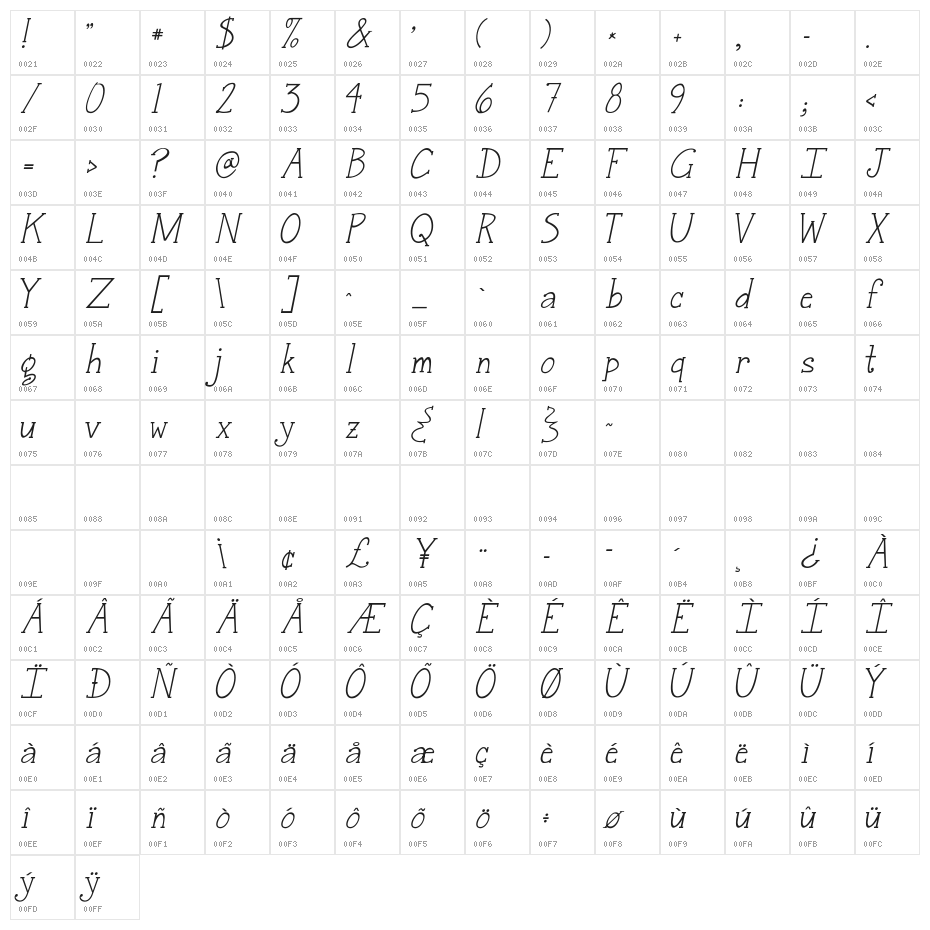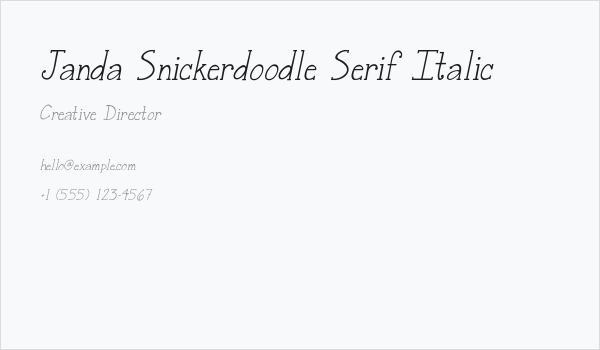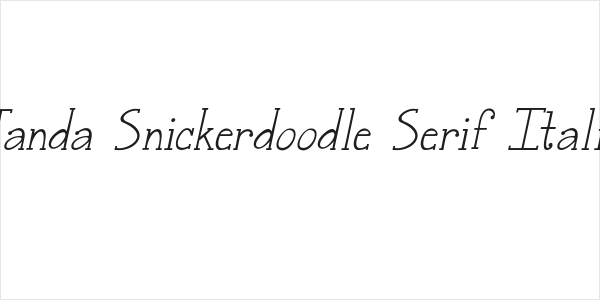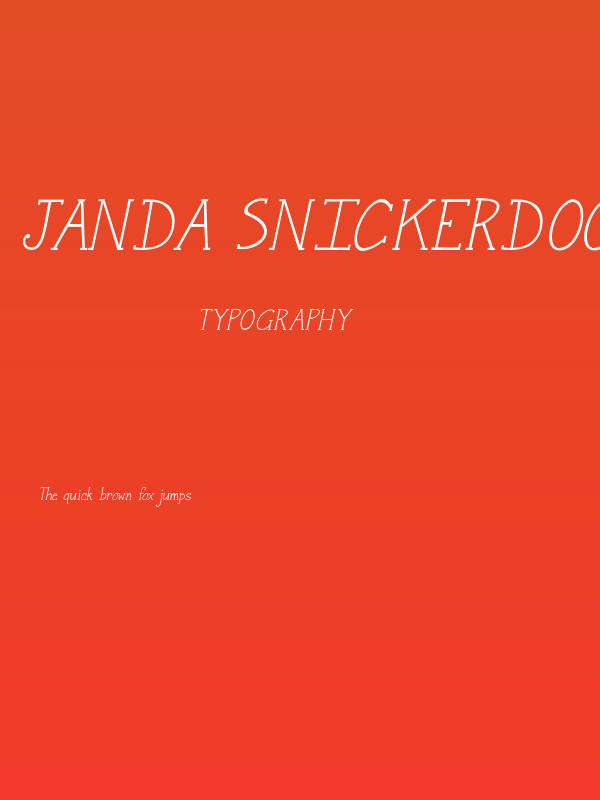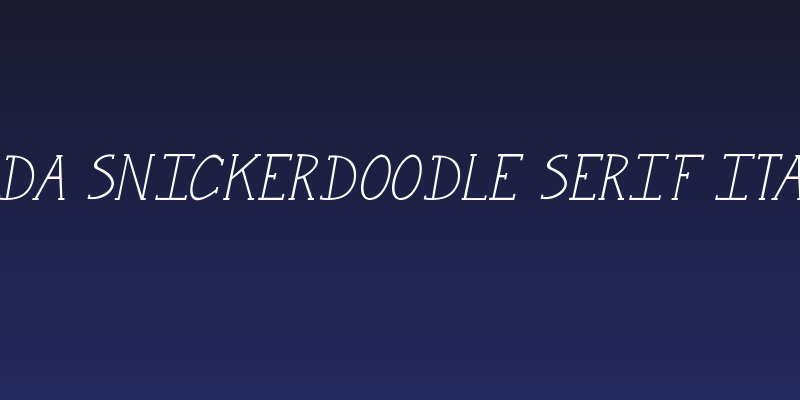
Janda Snickerdoodle Serif Italic Font
Janda Snickerdoodle Serif Italic Description
This font features a playful and whimsical design with a serif style. The letters are slightly slanted, giving it an italic appearance, which adds a dynamic and lively feel. The strokes are moderately thick, providing a medium contrast that enhances readability while maintaining a friendly and approachable look. The characters have a unique charm with subtle curves and a hand-drawn quality, making it suitable for creative and informal projects. The spacing between characters is normal, ensuring clarity and legibility across different sizes.
| Proposed Projects | Ideal for children's books, greeting cards, playful branding, and creative invitations. |